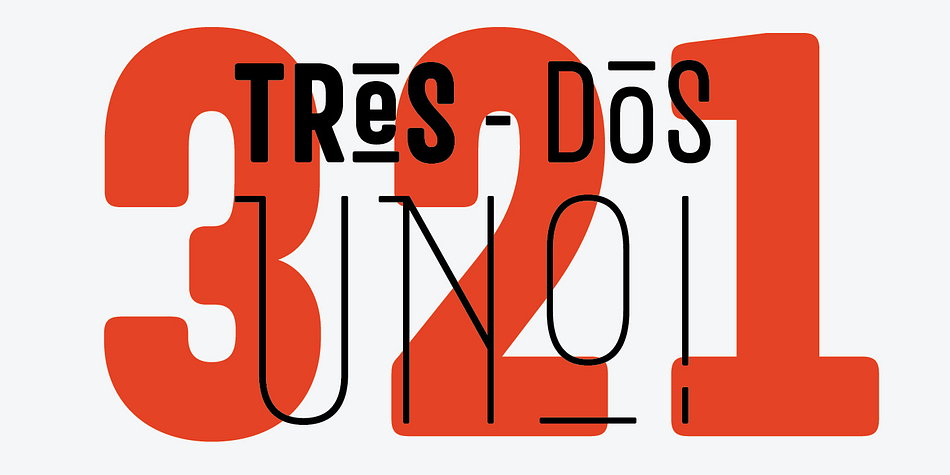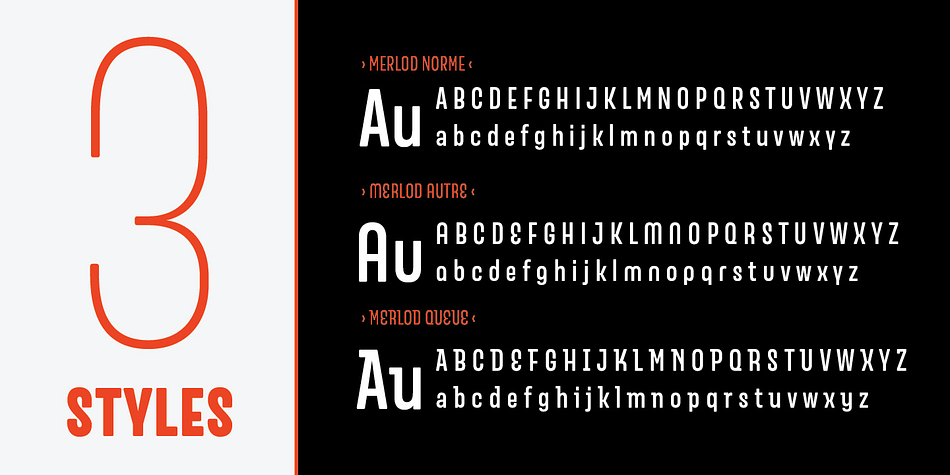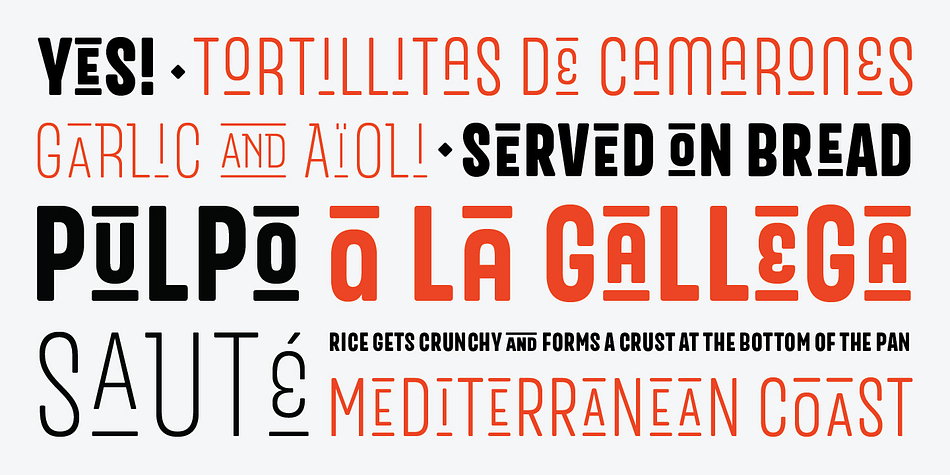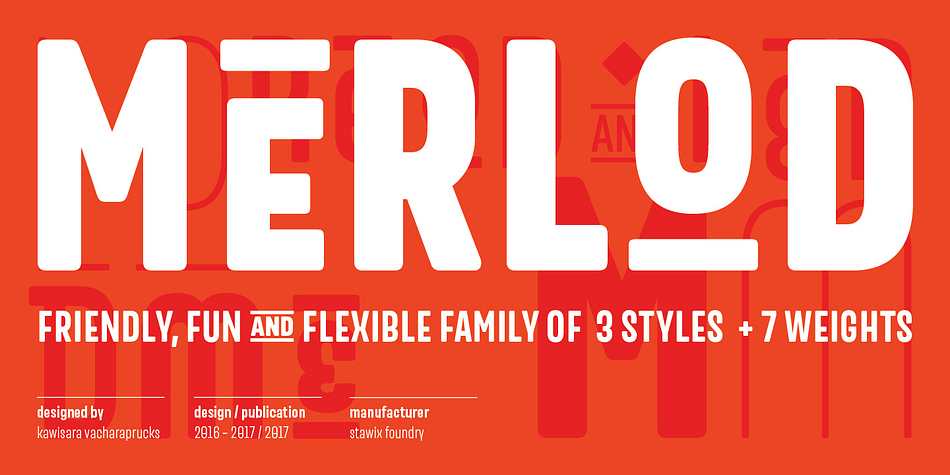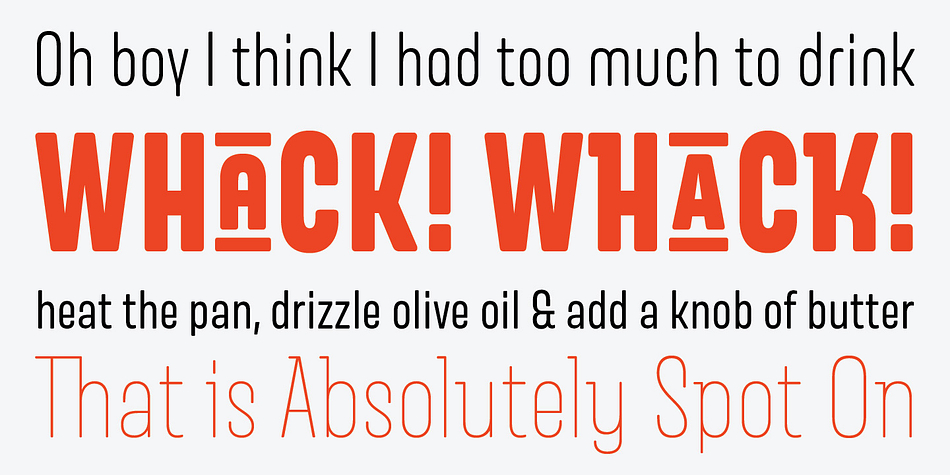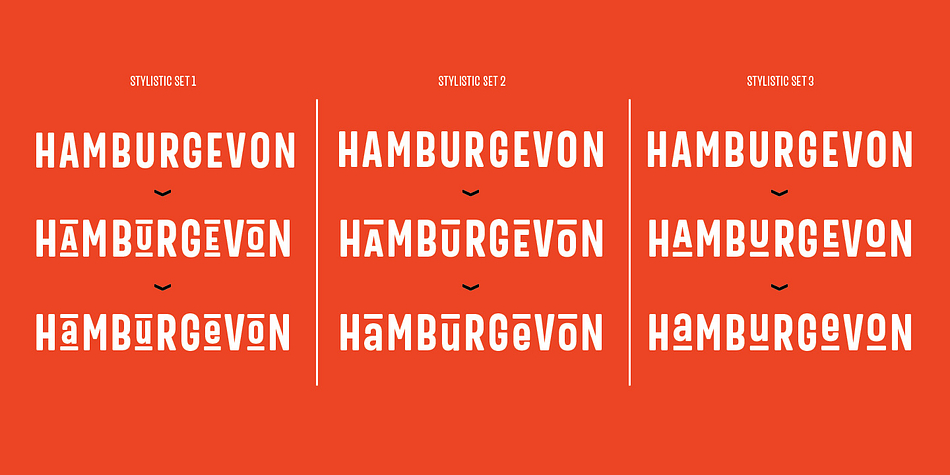
Designed by Kawisara Vacharaprucks, Merlod is a display sans font family. This typeface has twenty-one styles and was published by Stawix.
Merlod has depict its character from Latin-American sign painting and reinterpreting them into a modern approaches. This typeface is a friendly, fun and flexible family that is fun to use, consist of 3 different styles that each comes with 7 weights. Each styles of Merlod – Norme,Autre and Queue, possess a distinctive character but works together compatibly. Merlod also comes with a special stylistic set that allows the user to be creative and playful with the type, it helps enhance many different possibilities that certainly will spiced up your design.